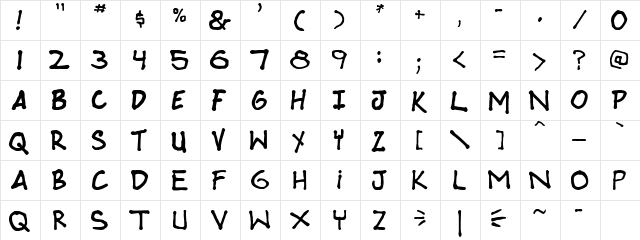
Webcomic whore Regular
Design Context for Webcomic whore Typeface
Webcomic whore trades formality for fun, with bouncy, characterful letterforms that bring warmth and energy to any project.
Font Pairing: Pairs well with a rounded or humanist sans for body copy, maintaining the friendly tone without relying on Webcomic whore to carry extended reading.
Pro Tip: Avoid using Webcomic whore for long passages of text — it works best for headlines, labels, and short calls to action.